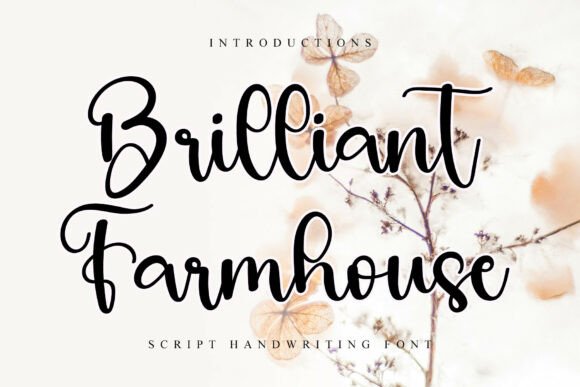
The Designer’s Delight: Brilliant Farmhouse Font
I still remember the design project that led me to discover the Brilliant Farmhouse font. I was working on a branding project for a local craft business, and I needed a font that would capture the essence of their handmade products. I spent hours scouring through font libraries, but nothing seemed quite right. That was until I stumbled upon Brilliant Farmhouse. Its bold, fluid strokes and dynamic script style immediately caught my attention, and I knew I had found the perfect fit.
So, what makes Brilliant Farmhouse so special? Let’s dive into the good stuff and a few quirks I’ve discovered.
- ✨ Unique Style: Brilliant Farmhouse blends the beauty of handwritten calligraphy with a modern and assertive touch, making it perfect for logos, headlines, and branding elements.
- ✅ Elegant and Charismatic: This font exudes strength, elegance, and charisma, making it ideal for high-end brands or creative projects.
- 💫 Versatile: Whether you need a bold statement piece or a subtle accent, Brilliant Farmhouse delivers with confidence and flair.
While Brilliant Farmhouse is an amazing font, there are a few things to keep in mind:
- ⚠️ Legibility at Small Sizes: Like many script fonts, Brilliant Farmhouse can be tricky to read at very small sizes. It’s best used at larger sizes where its unique style can shine.
- 🤔 Pairing with Other Fonts: Due to its bold and dynamic nature, Brilliant Farmhouse can be challenging to pair with other fonts. Experiment with different combinations to find the perfect balance.
The Story Behind Brilliant Farmhouse
While the true origins of Brilliant Farmhouse are shrouded in mystery, it’s clear that the designer was inspired by the beauty of handwritten calligraphy and the confidence of modern typography. The result is a font that’s both elegant and assertive – perfect for making a statement in your design projects.
Q: What makes Brilliant Farmhouse unique?
A: Brilliant Farmhouse stands out with its bold, fluid strokes and dynamic script style, blending elegance with a modern touch.
Q: Is Brilliant Farmhouse suitable for body text?
A: While Brilliant Farmhouse is stunning, it’s best used for headlines, logos, and branding elements. For body text, consider a more legible font.